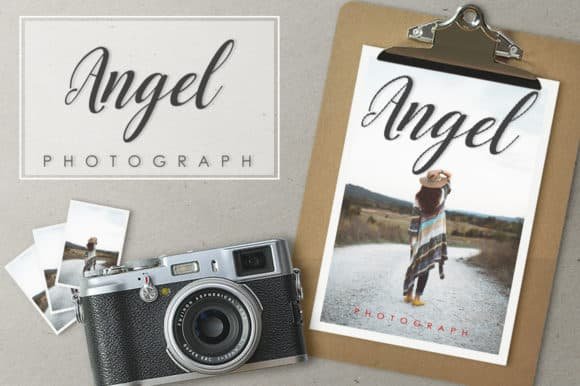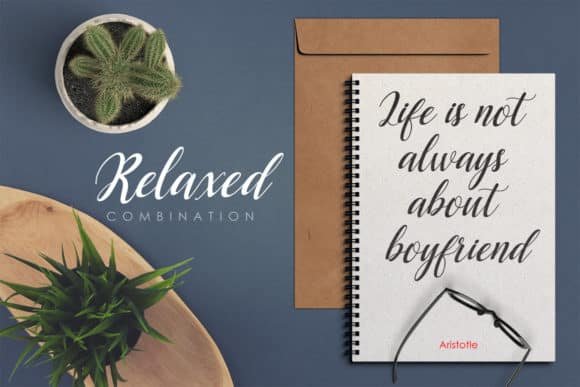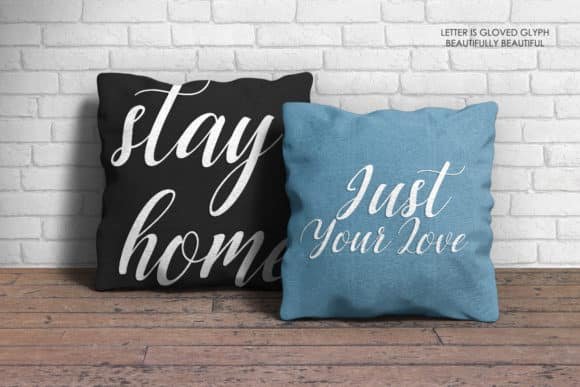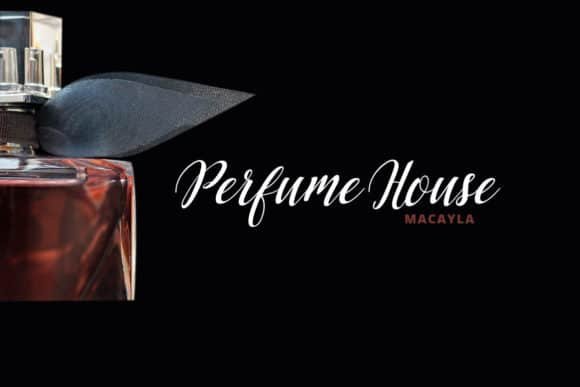
Angellie Font
Musafir LAB
Angellie is a joyful script font. Use it to make your ideas even more realistic and create spectacular designs! Add this lovely freebie to your creations and take your designs to the next level!